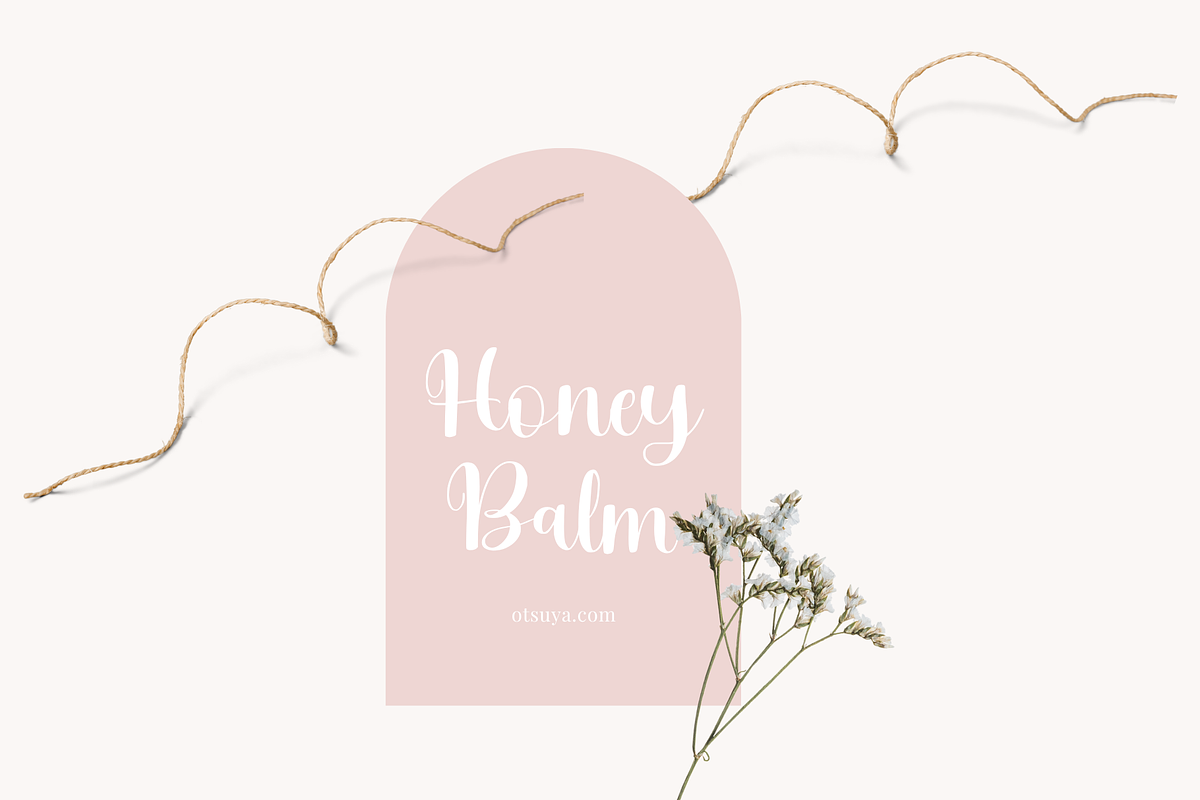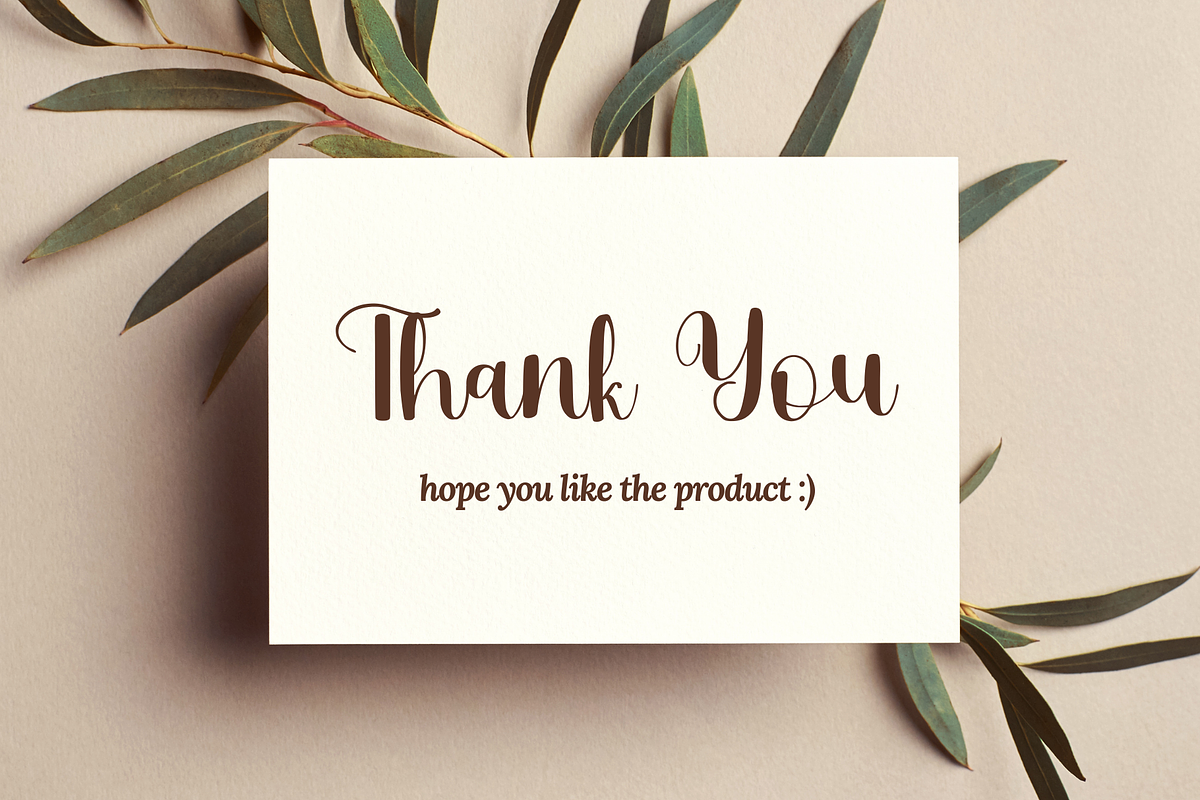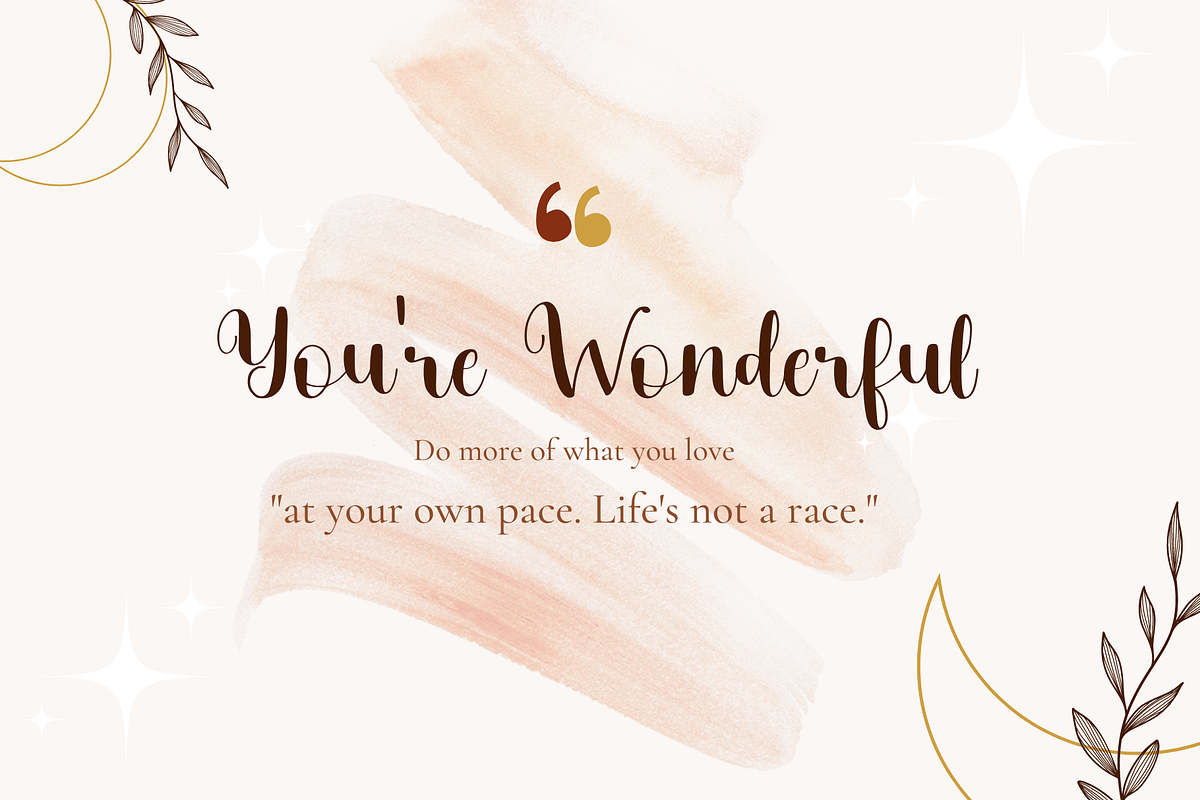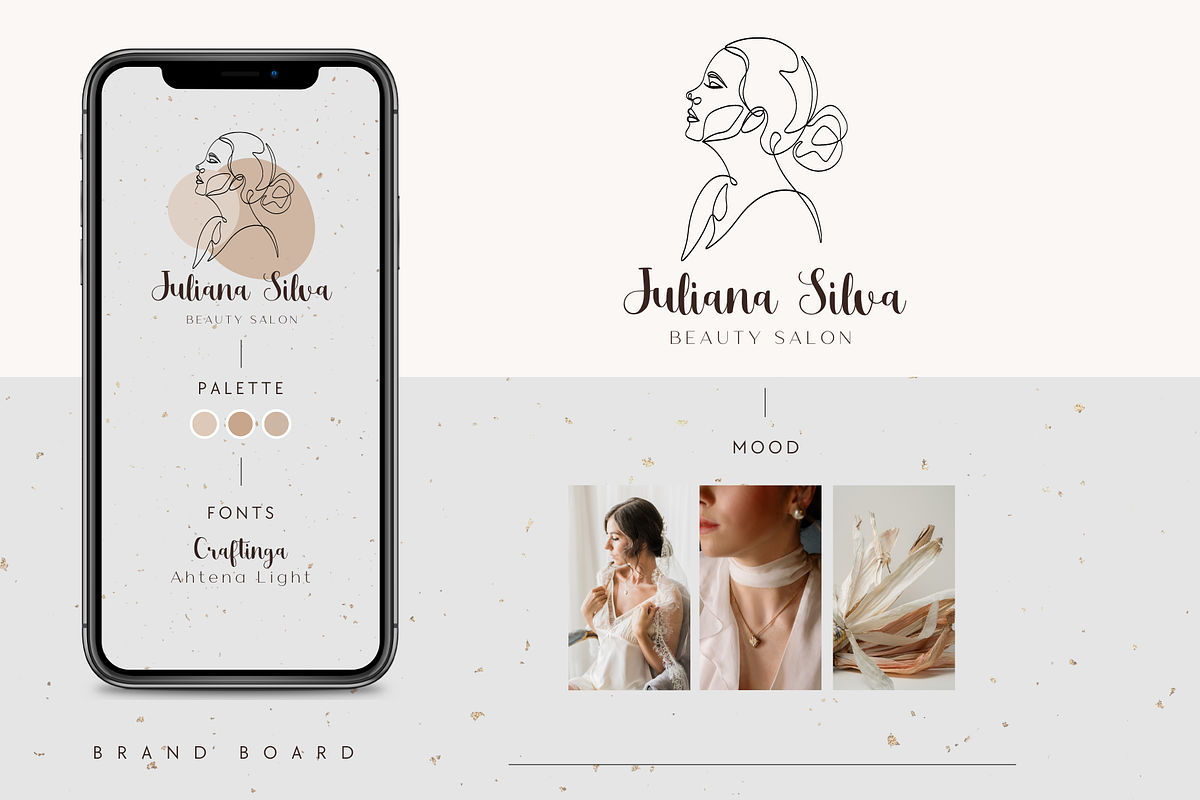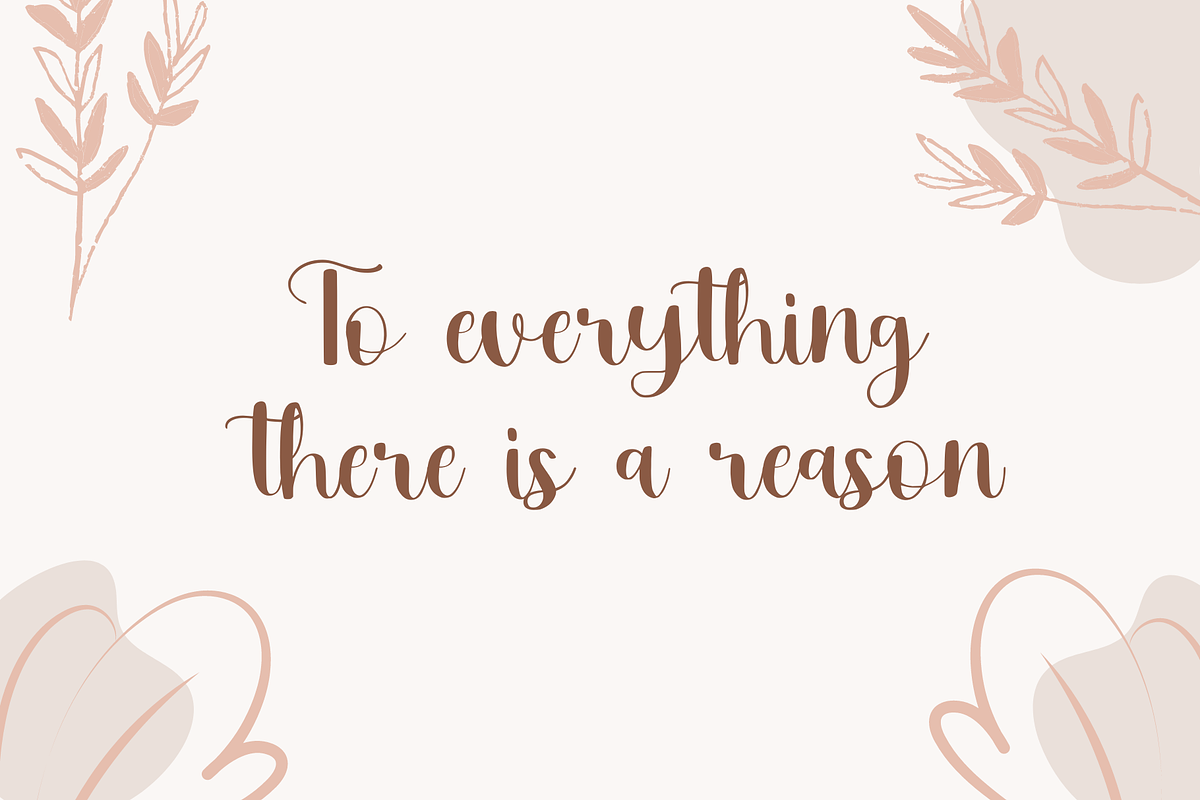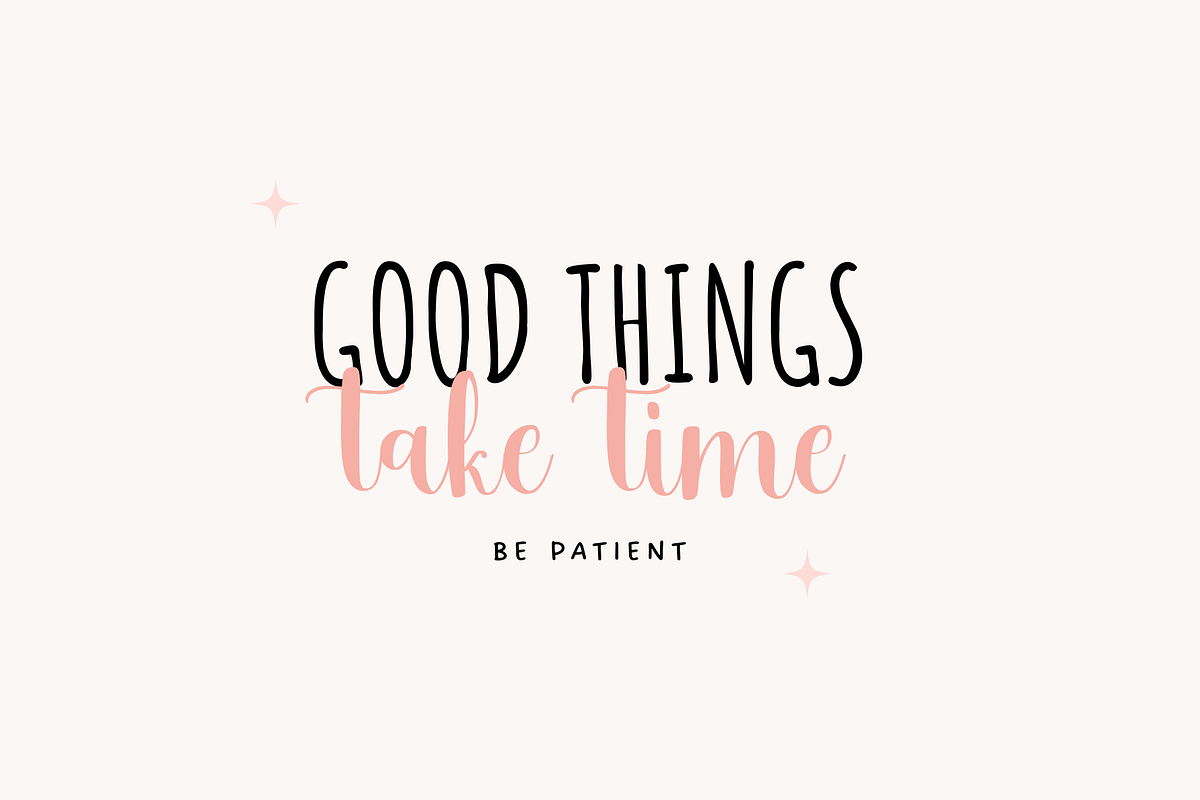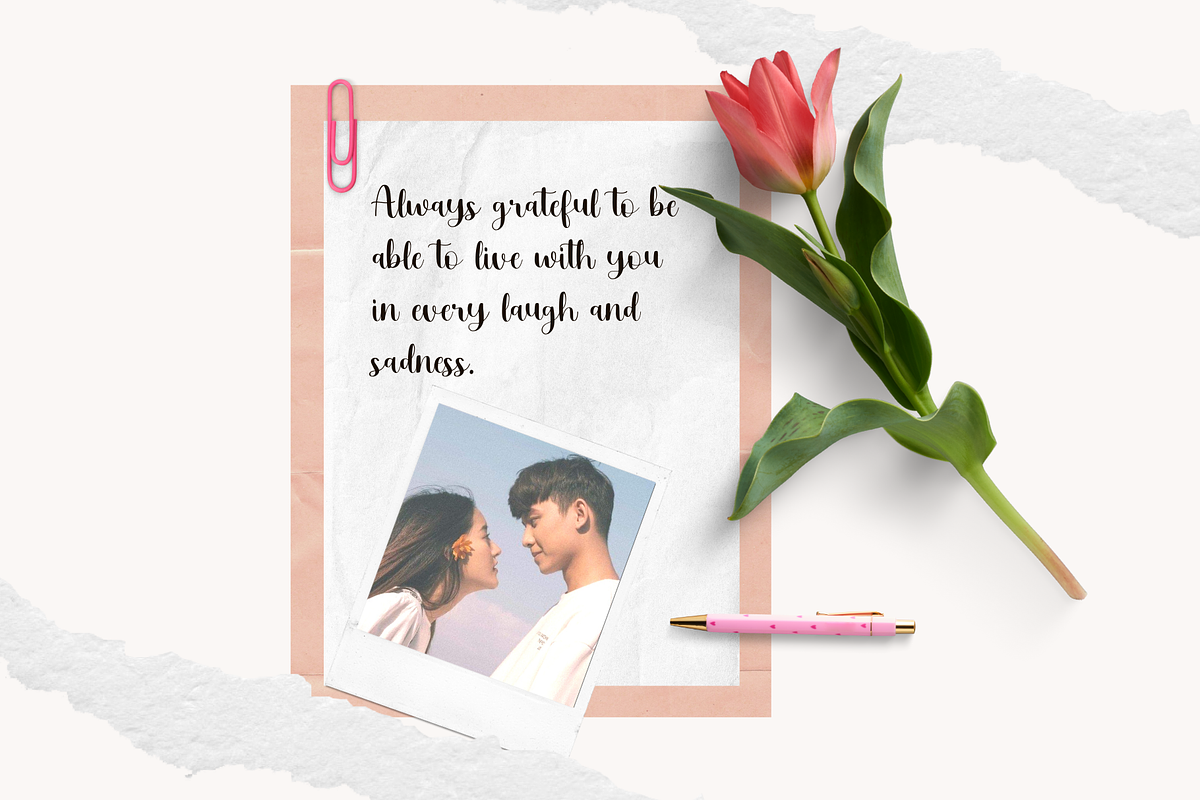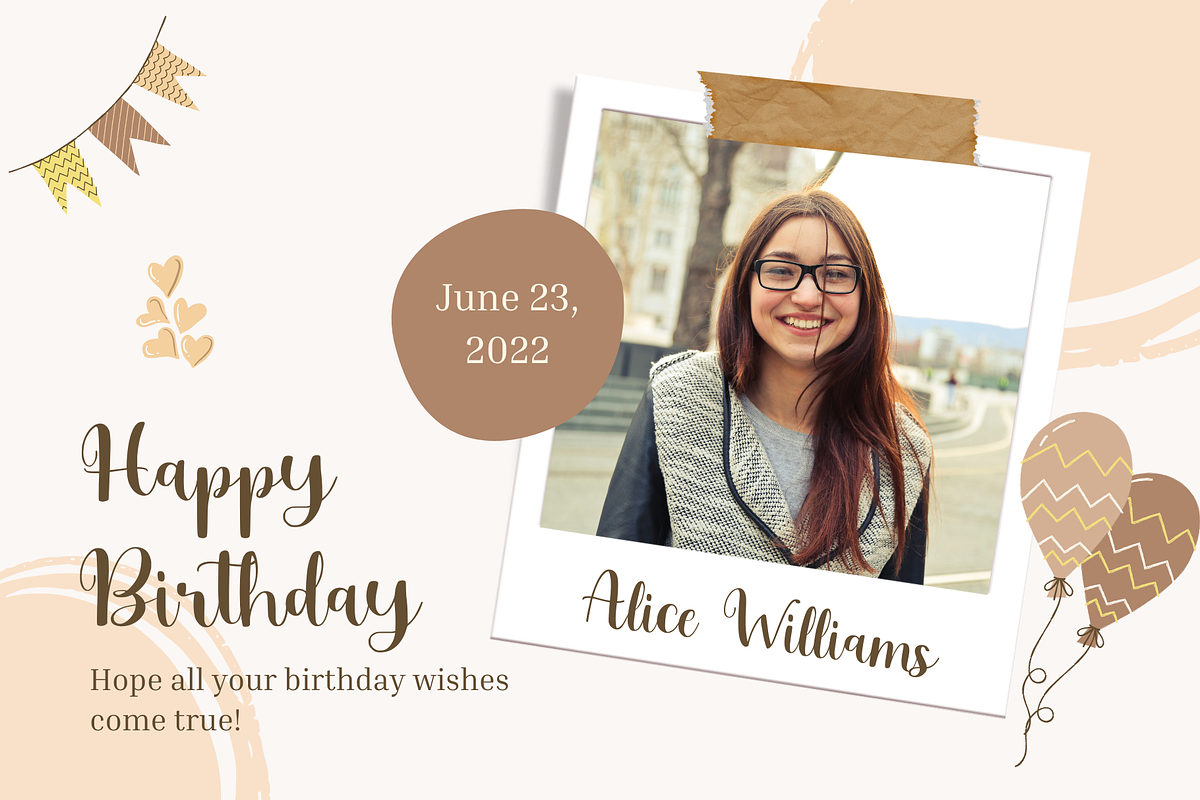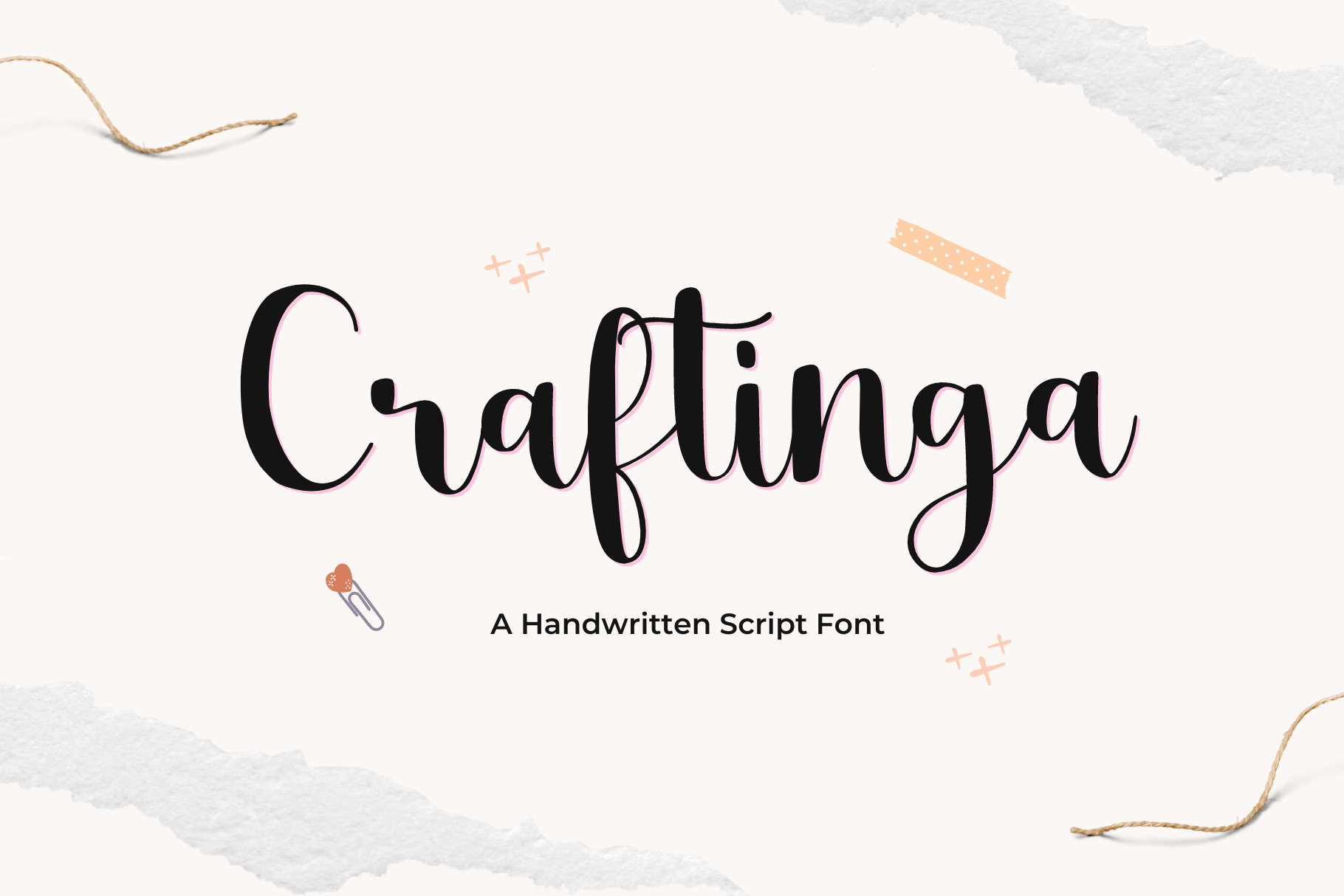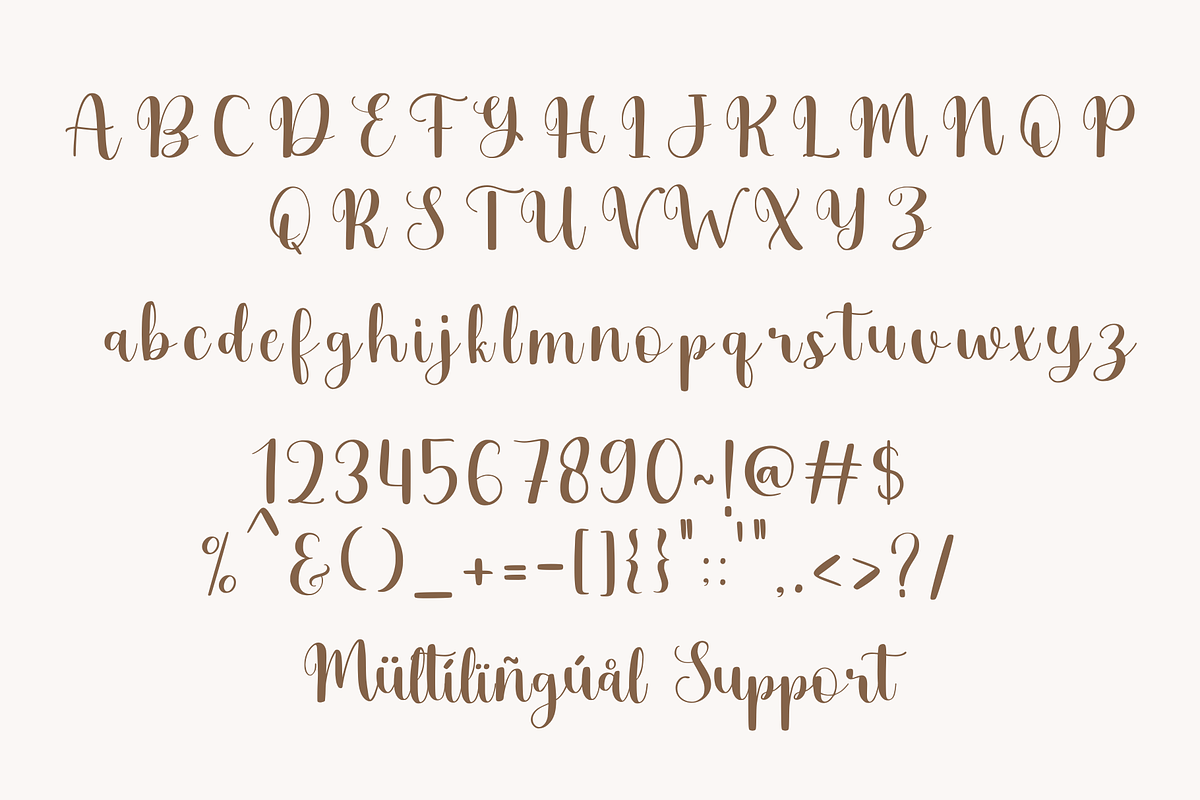
Craftinga - Handwritten Font
Craftinga - Handwritten Font, this font is perfect for branding, invitation, stationery, wedding designs, social media posts, advertisements, product packaging, product designs, label, photography, watermark, special events, and more.
- Uppercase and lowercase letters
- Multilingual, numerals, and punctuation